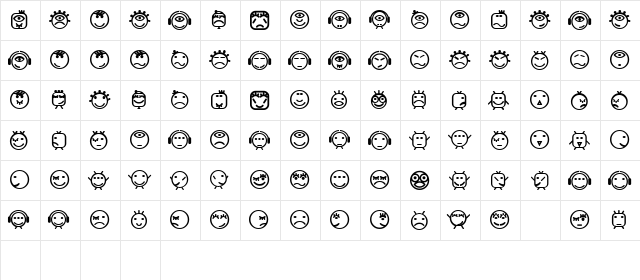
Smilly Normal Font Preview
Smilly Normal
Design Context for Smilly Typeface
Smilly is a composed and adaptable typeface that performs quietly and consistently across a wide range of design contexts.